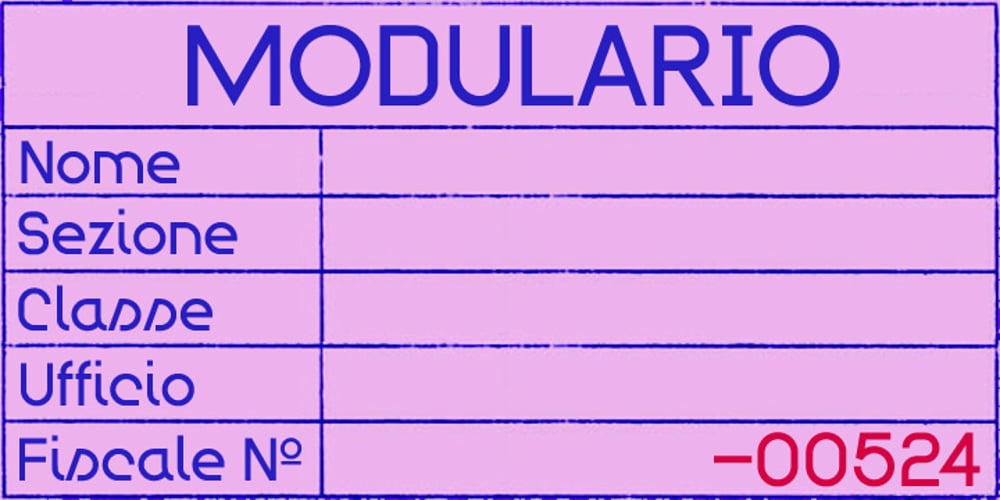
Modulario Font Family was designed by published by K-Type. Modulario contains 1 styles and family package options. Modulario is a geometric sans with some disturbingly individual features. A few capitals owe a bit too much to Roman proportions. The circular O serves to distinguish it from the zero, and the luxuriously wide W and M are both pointed in the middle, although alternatives to the more contentious letters are available within the font. The lowercase shows a little more handwriting influence than is customary – we are used to seeing a writing-style curve at the base of the l, Modulario extends the influence to the i and a, and also sports a uniquely scripty s.